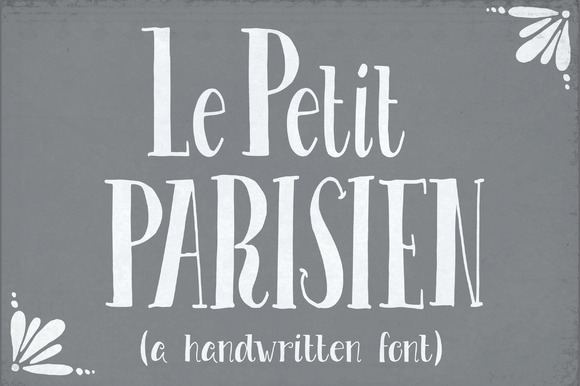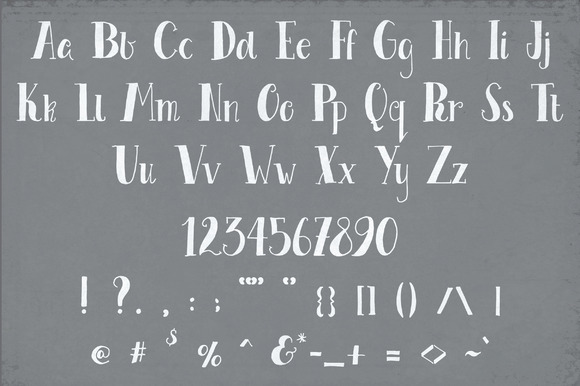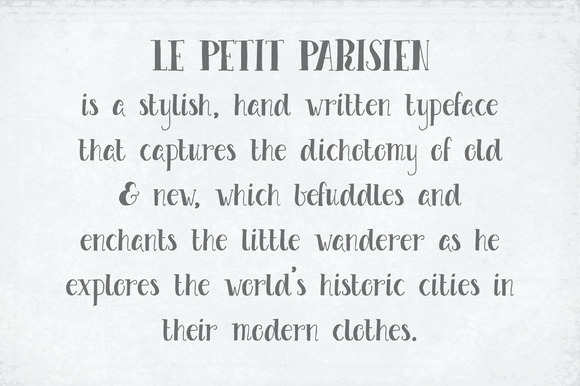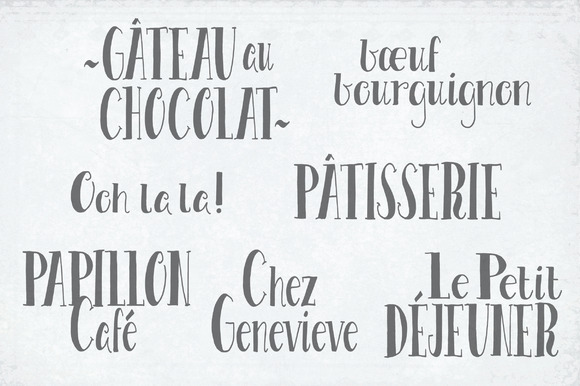
Le Petit Parisien Font
About Le Petit Parisien Font
Le Petit Parisien is a beautiful hand drawn and handmade font and is an ode to the charm of one of the world’s most historic cities: Paris
Le Petit Parisien is combination of modern design with a nostalgic feeling. This gorgeous font makes you feel like you are sitting on a small terrace in the sun, sipping on a cup of coffee.
The font includes all standard characters and includes also the currency symbols, copyright, trademark & fractions and also includes all the accents needed to write most European languages.